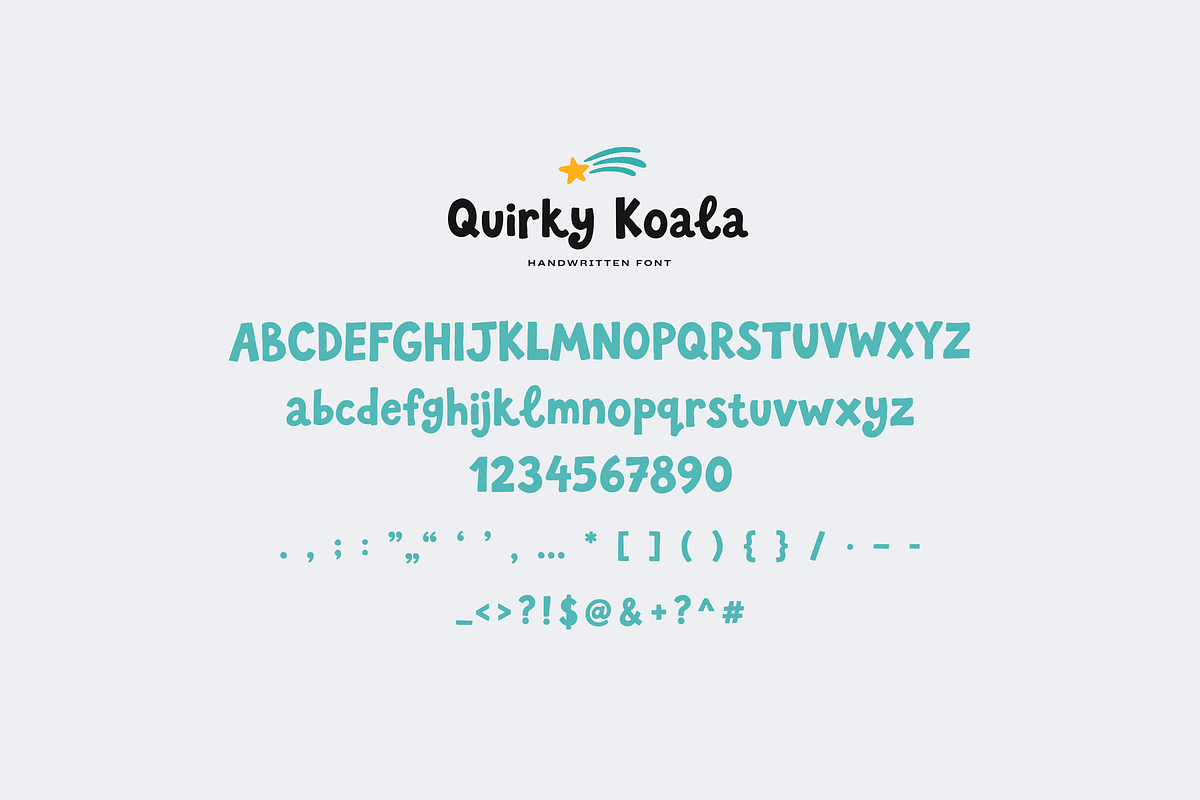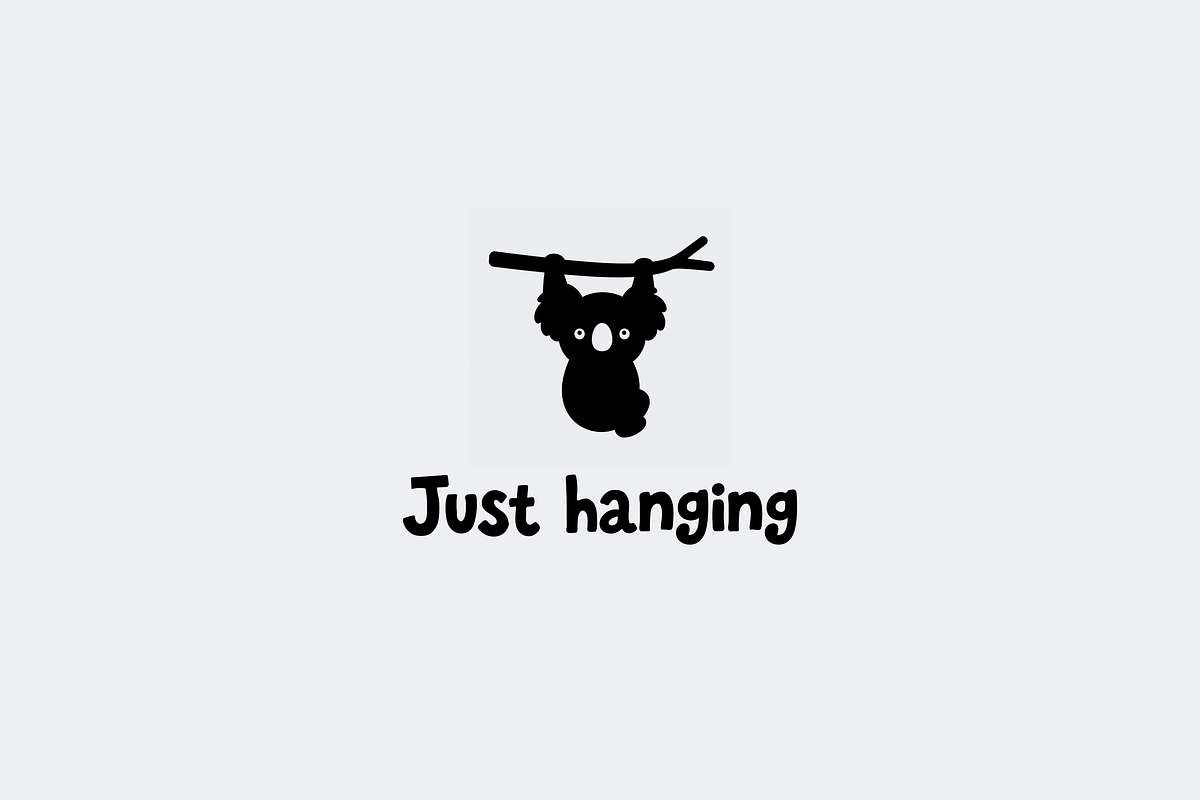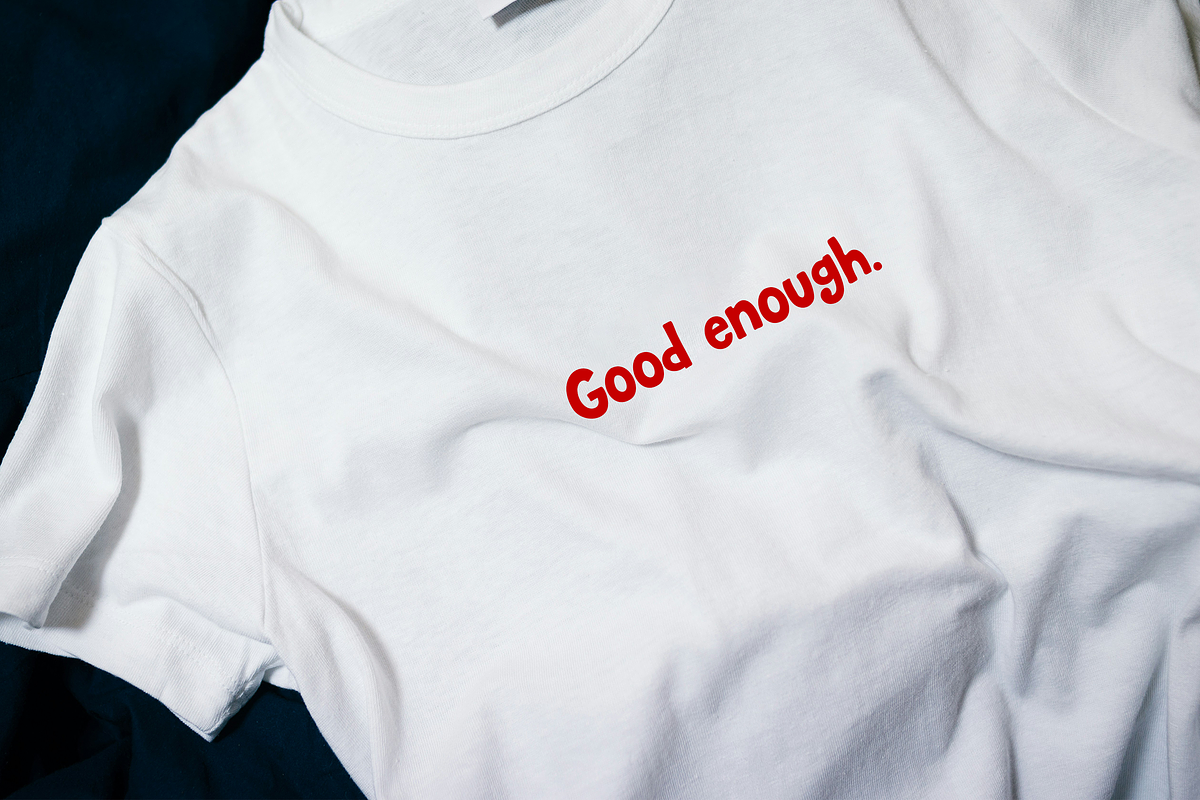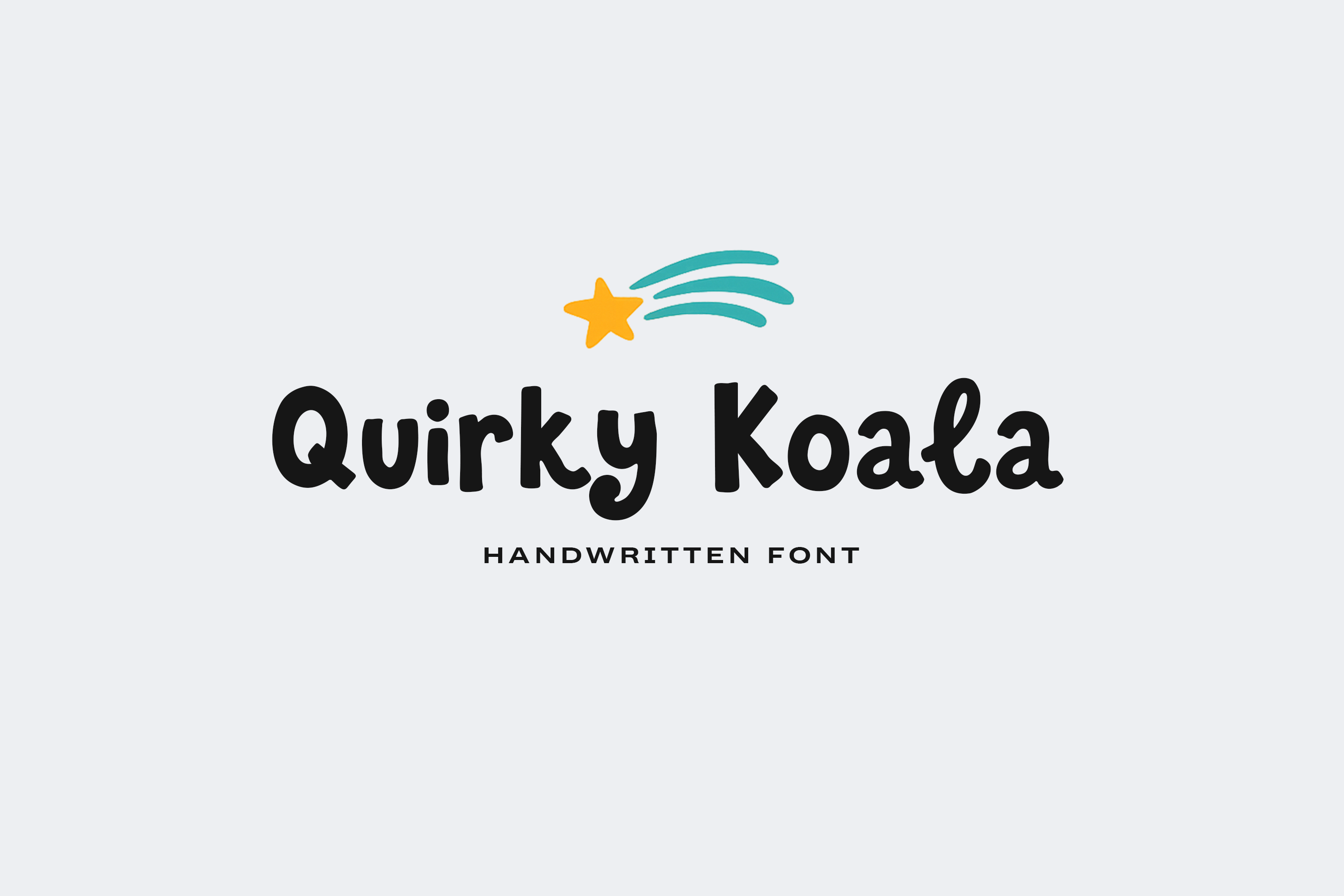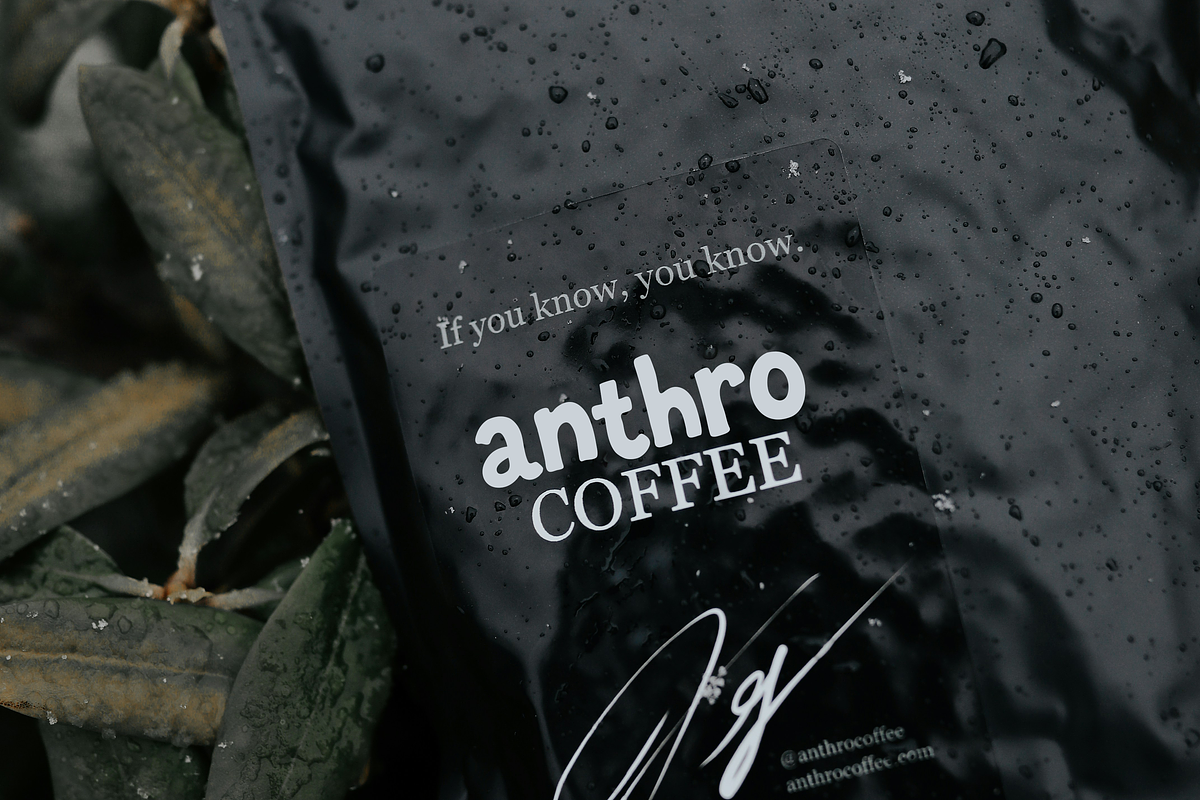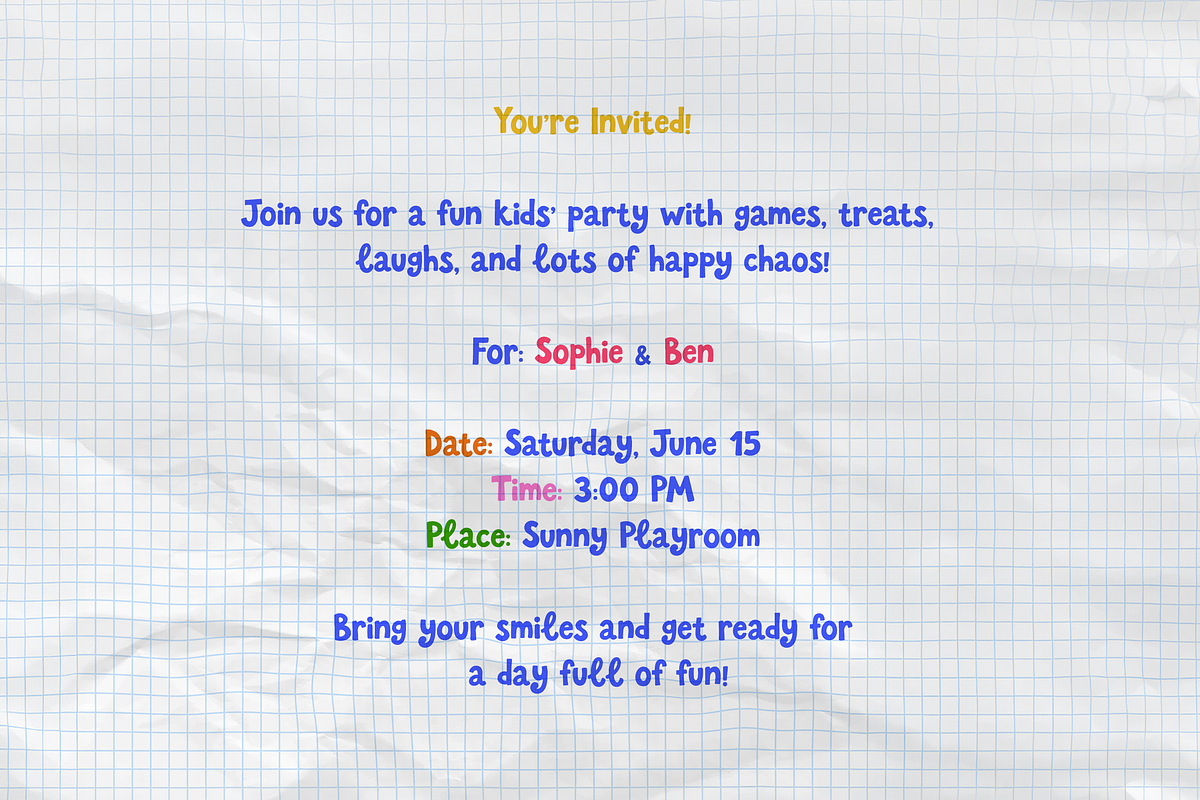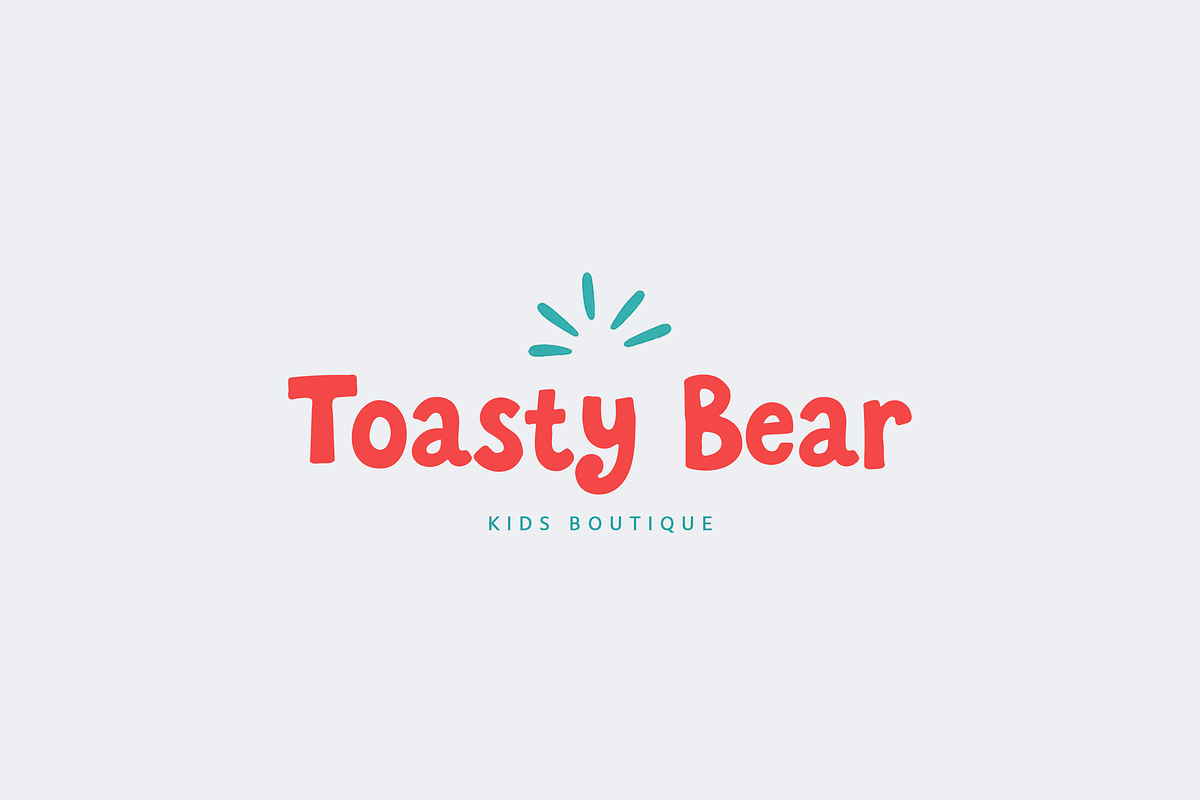
Quirky Koala Font
Quirky Koala is a fun and playful handwritten font with bold, chunky, and slightly quirky letters. Perfect for kids’ designs, birthday invitations, classroom projects, stickers, t-shirts, posters, logos, Cricut crafts, and cheerful branding.
This font has a cute handmade look that adds a happy and friendly feel to any design. Great for party printables, nursery art, children’s products, and playful social media graphics.
What you can create: Birthday invitations, kids’ posters, t-shirt designs, stickers, cards, classroom decor, party signs, logos, packaging, printables, and more.